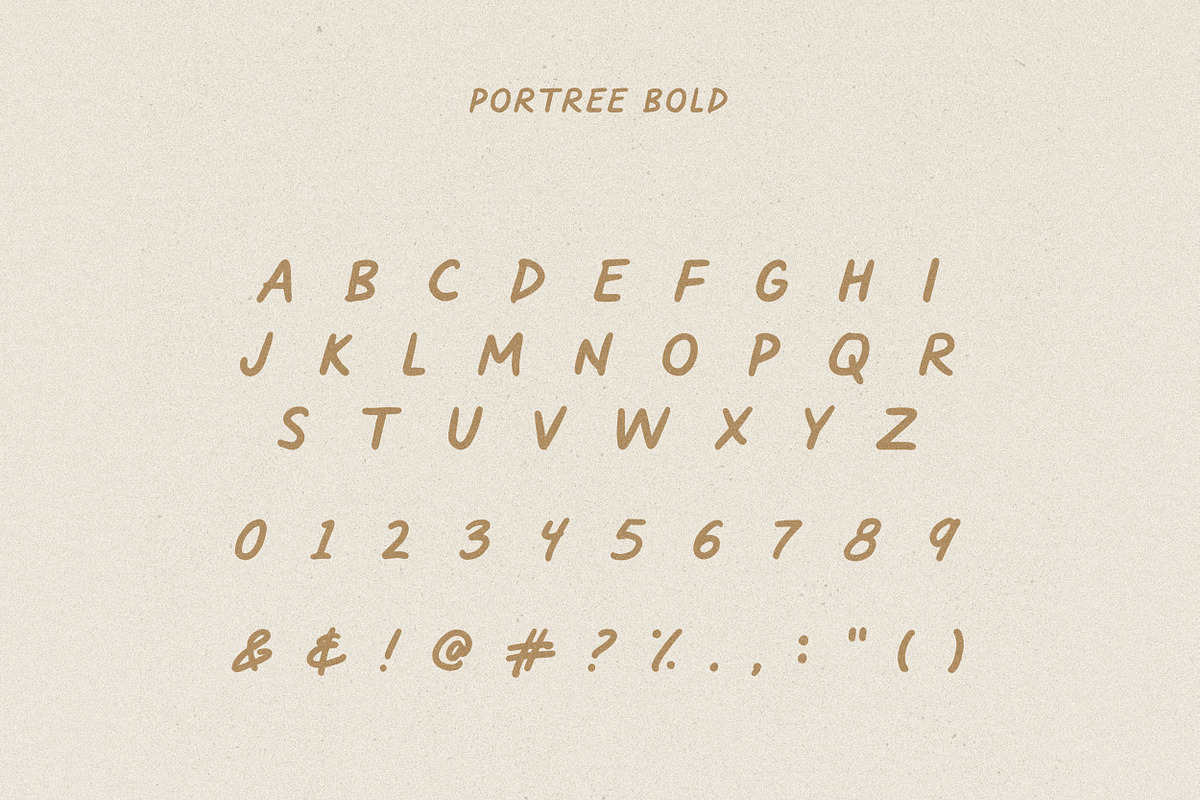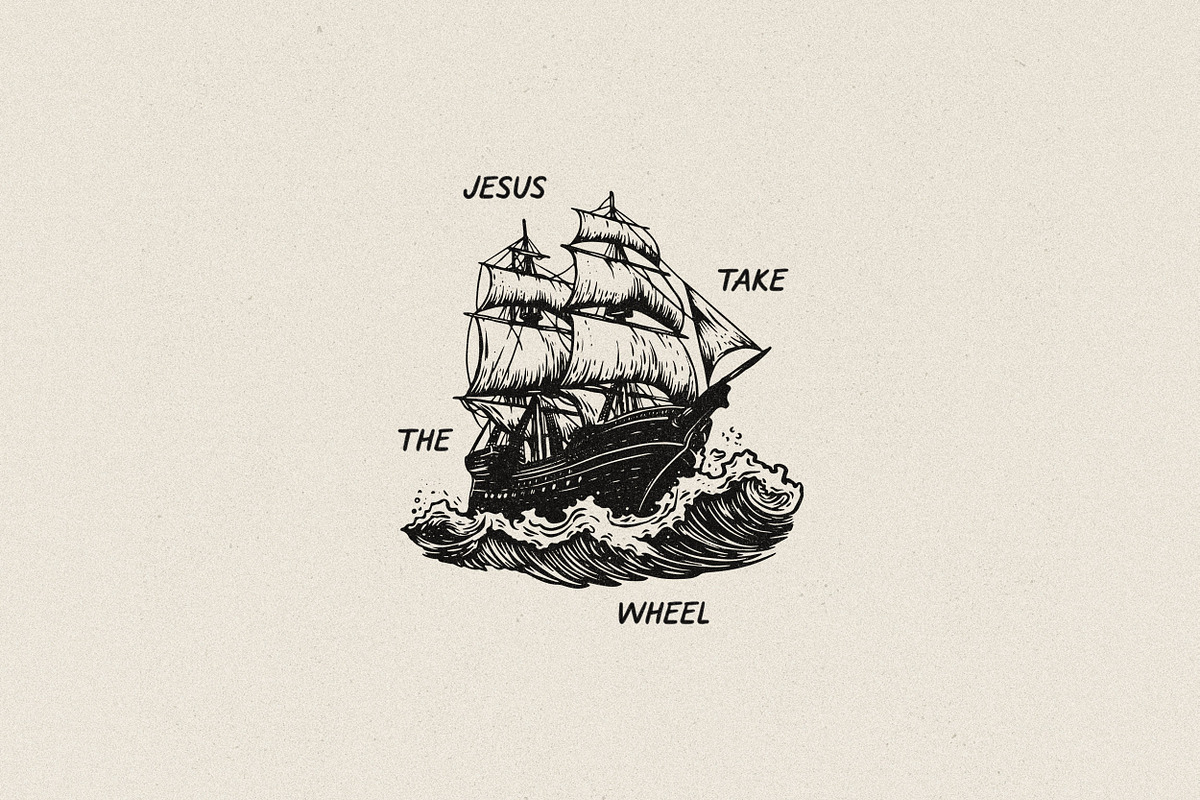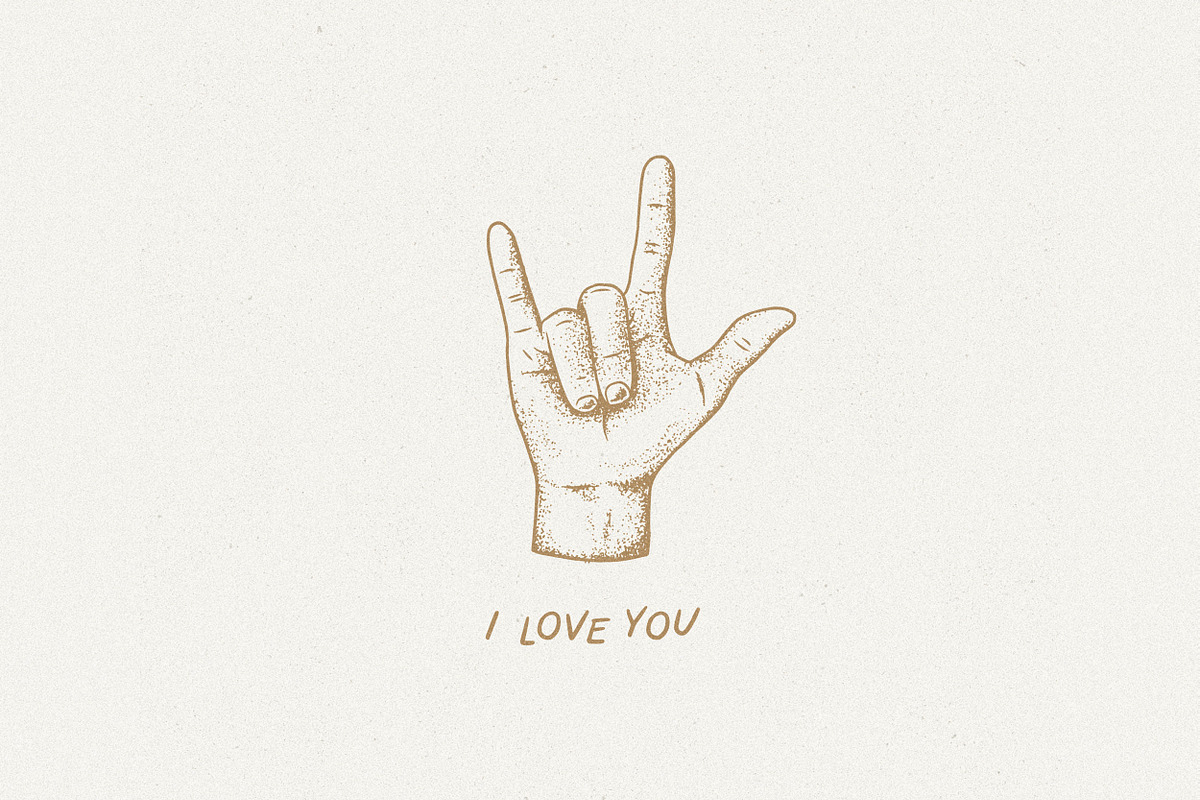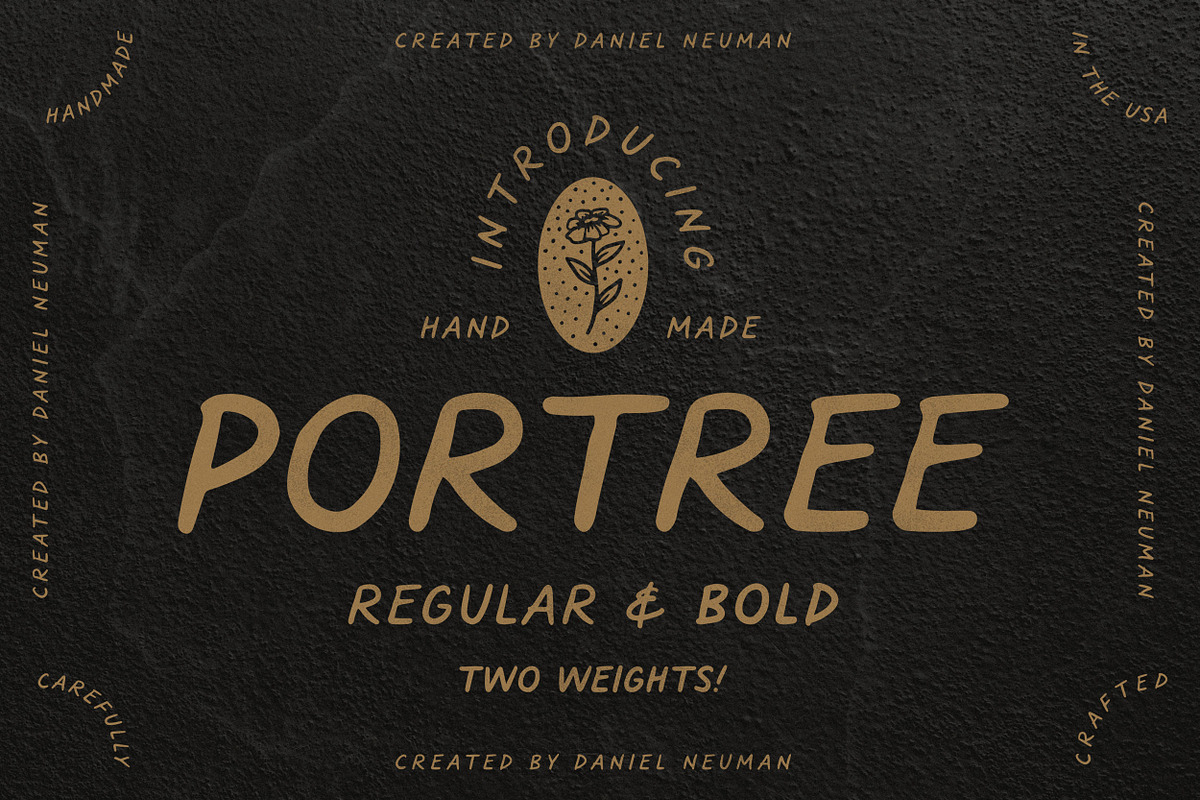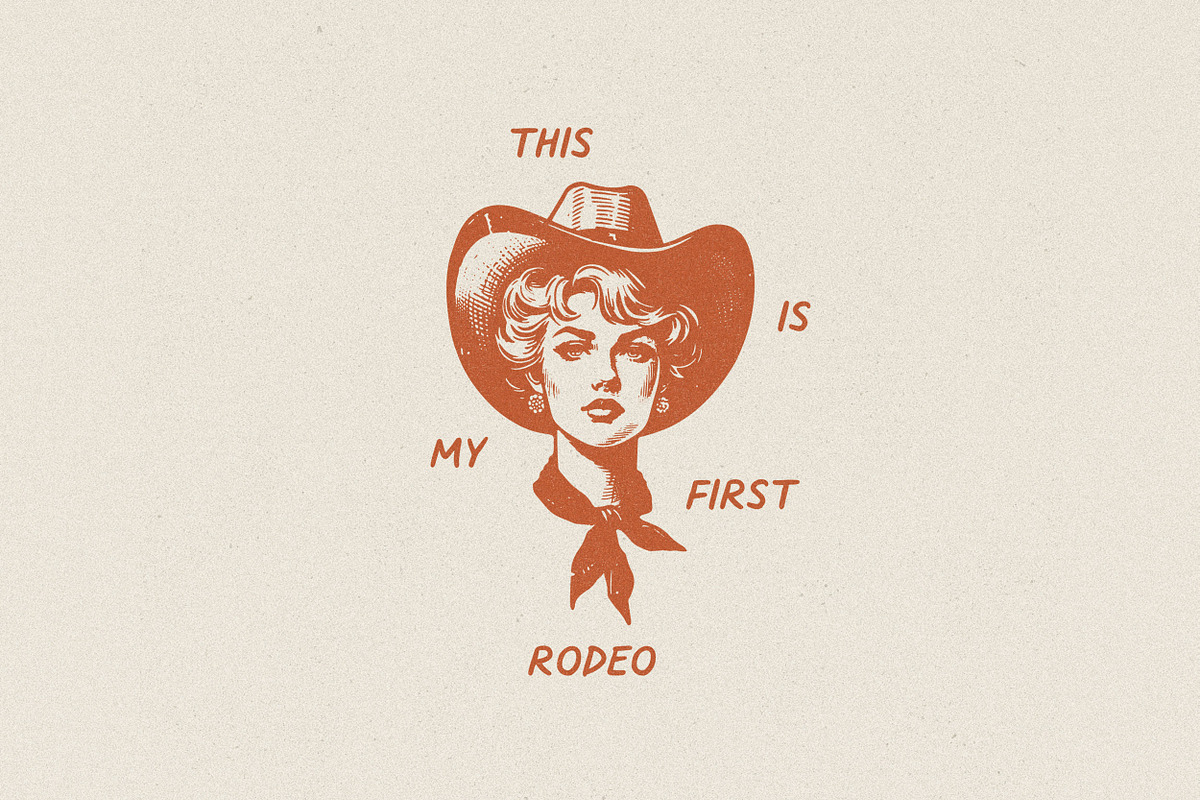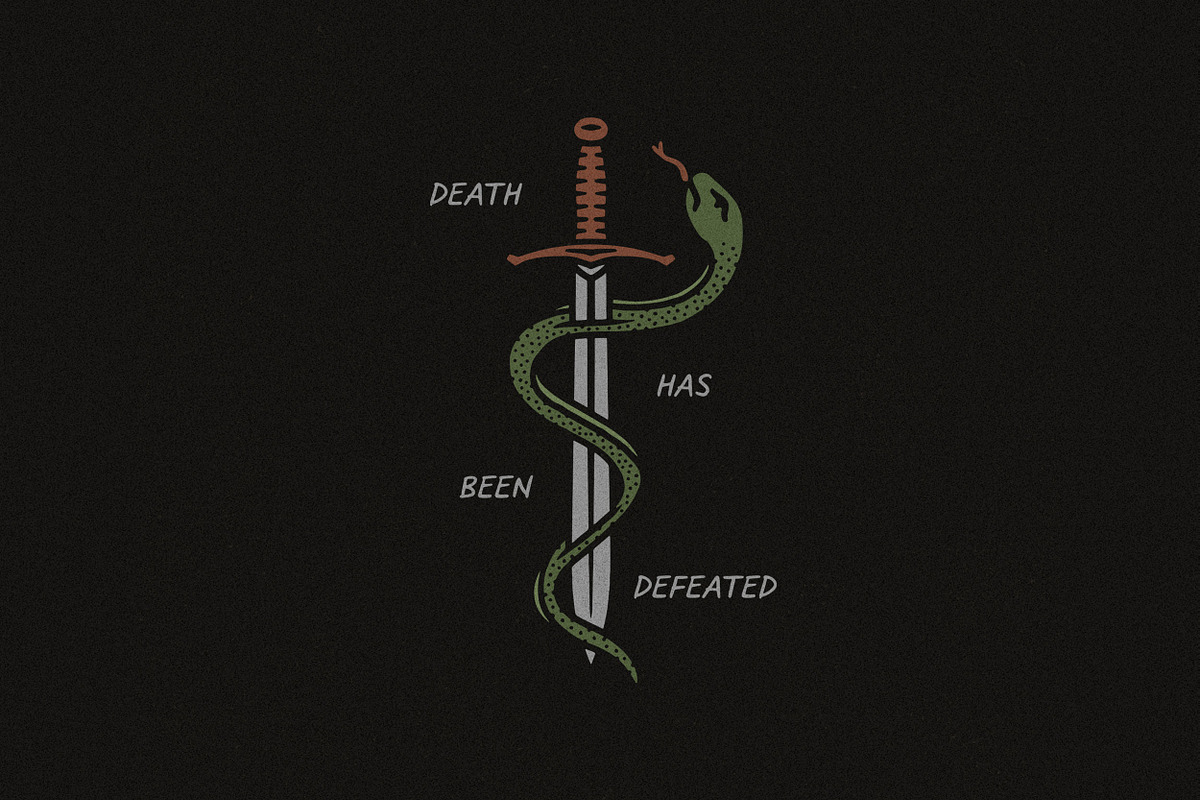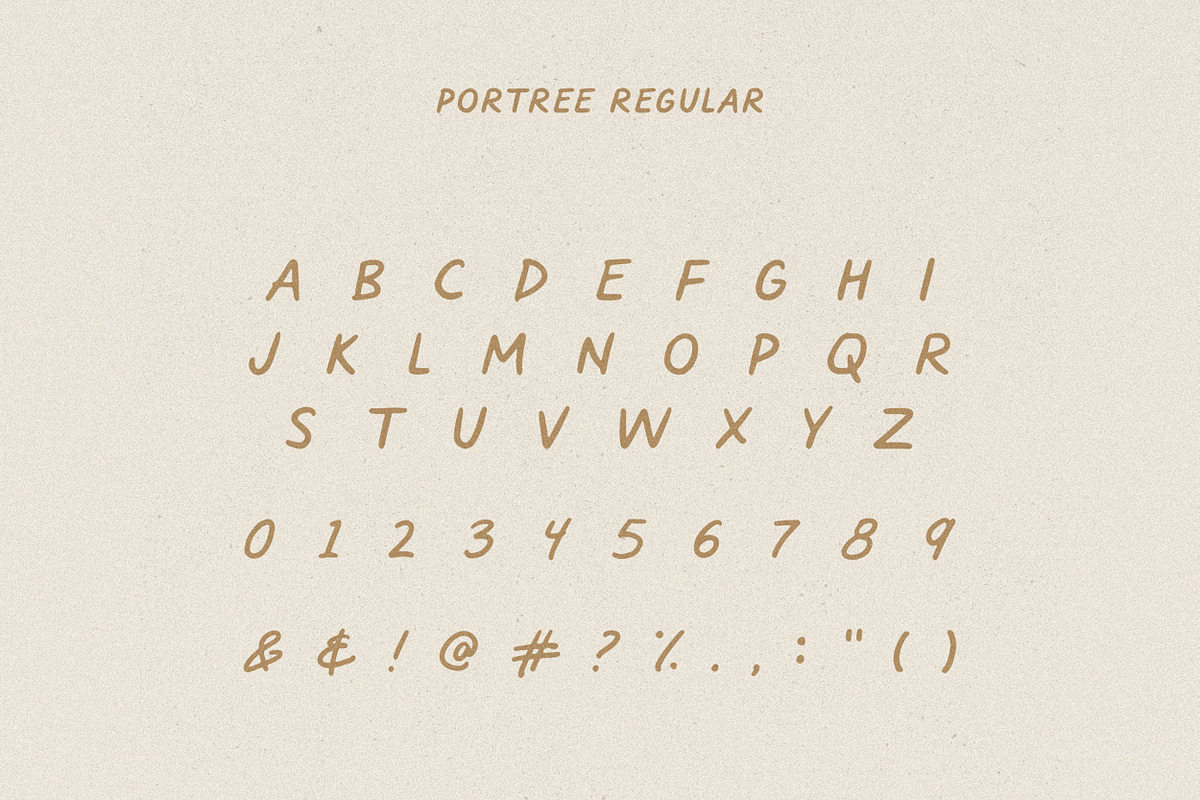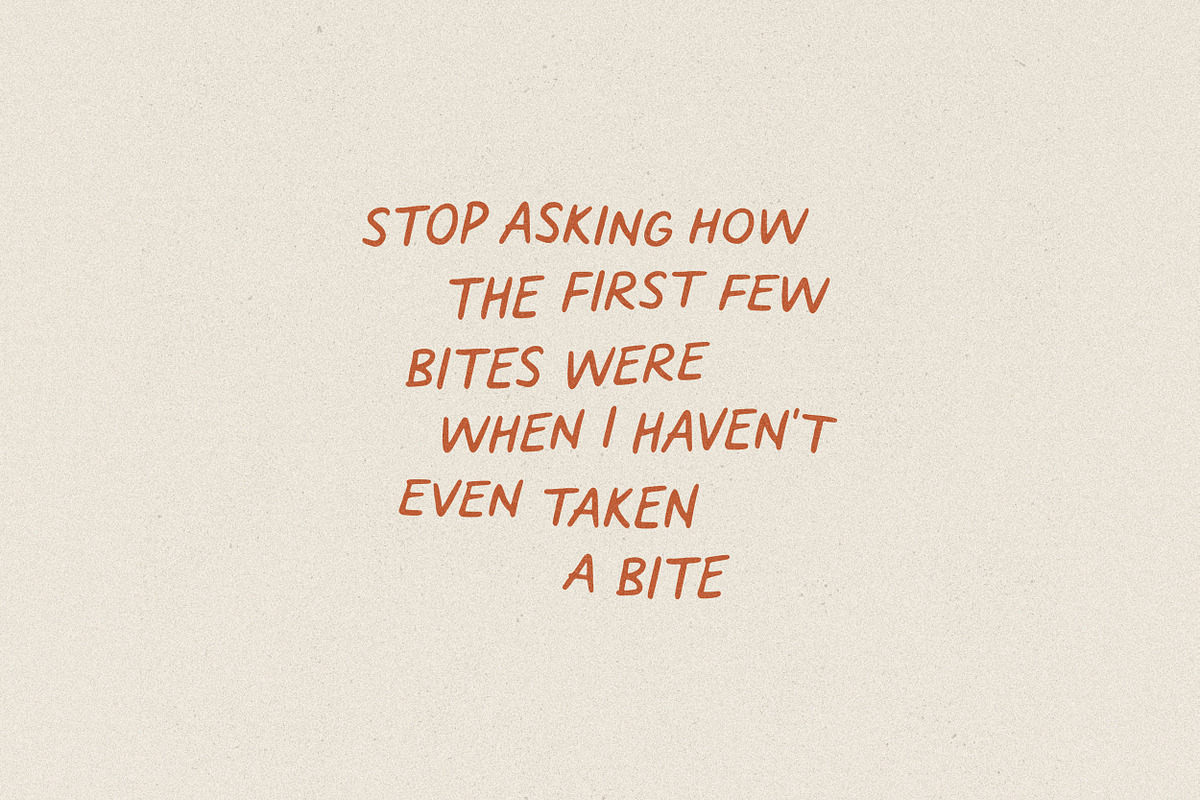
Portree | Handwritten Sans Serif
A hand written font with both regular and bold weights. Pairs perfectly with a single illustration to make a bold impact.
Contains single-case A-Z, numbers 0-9 and basic punctuation.